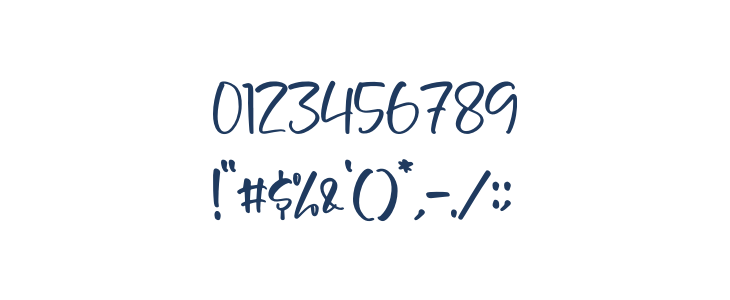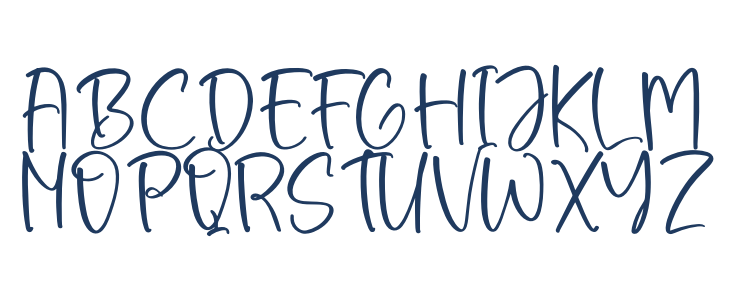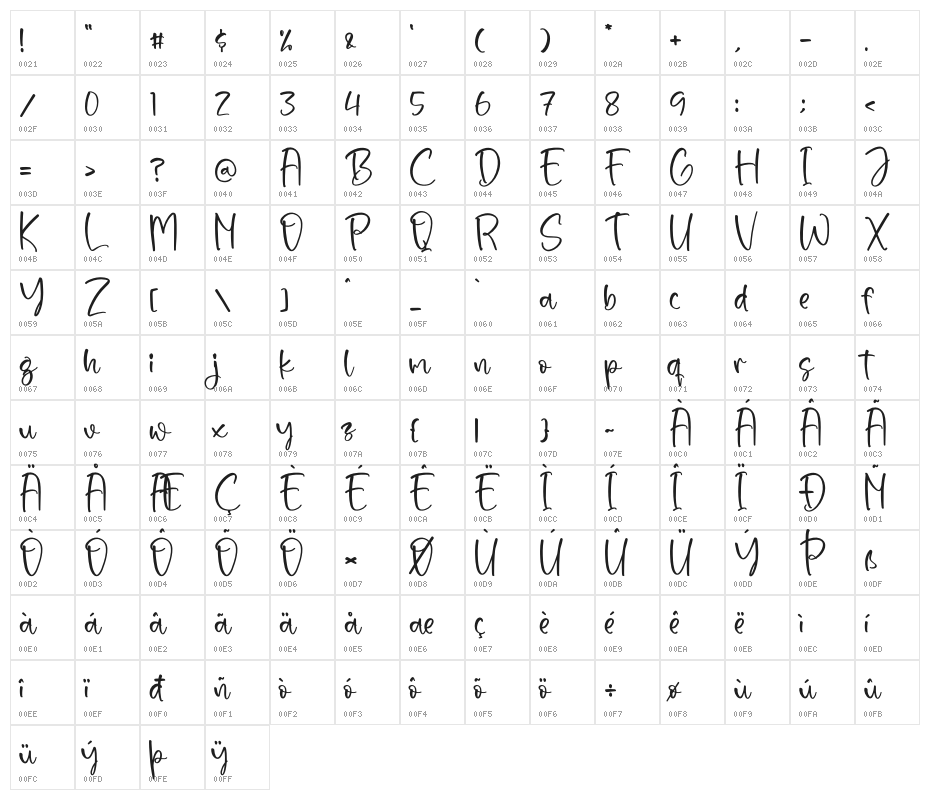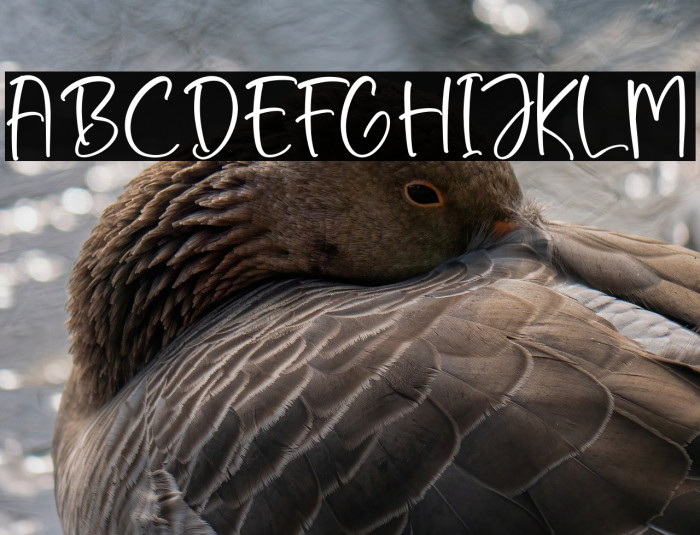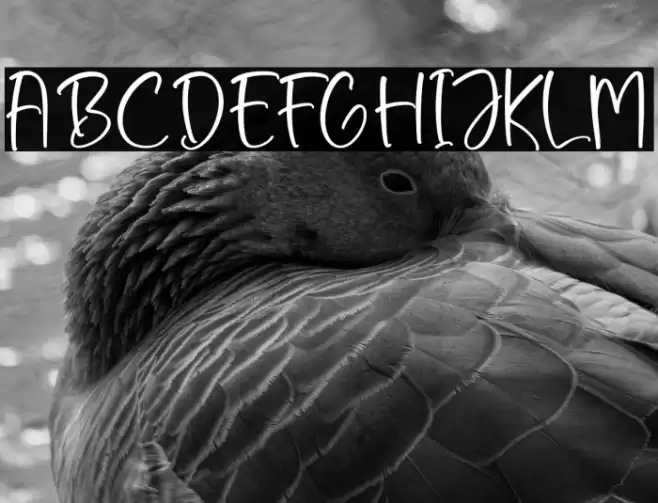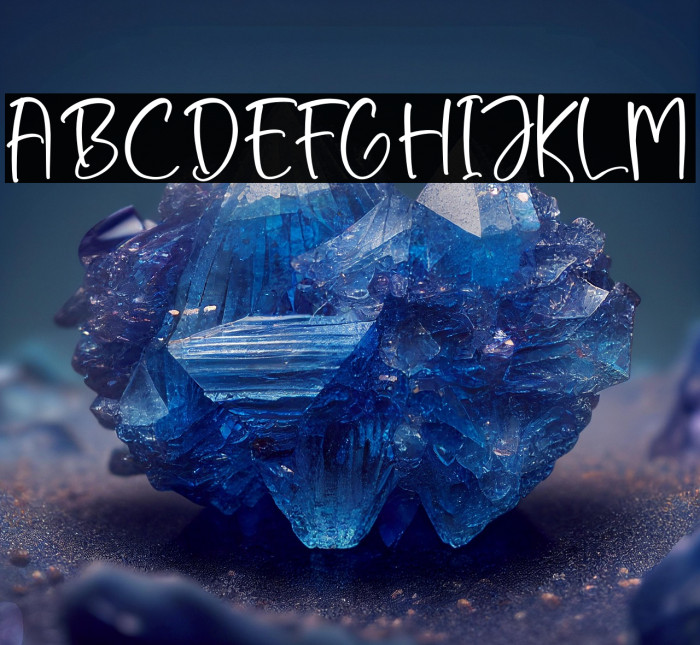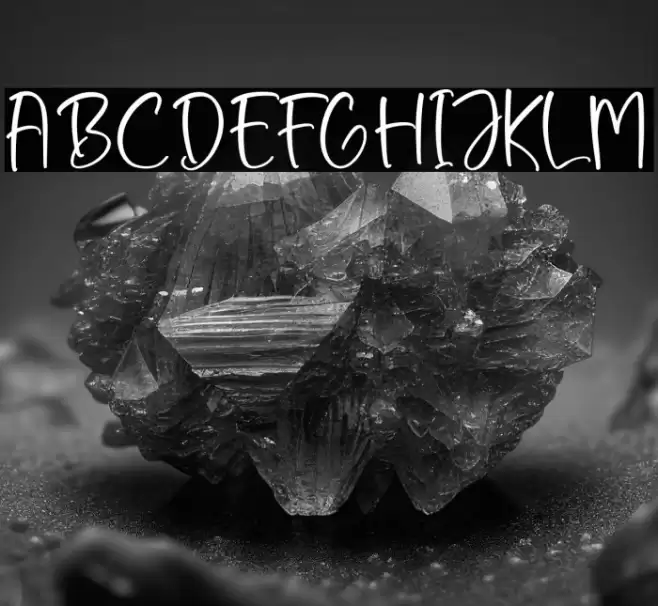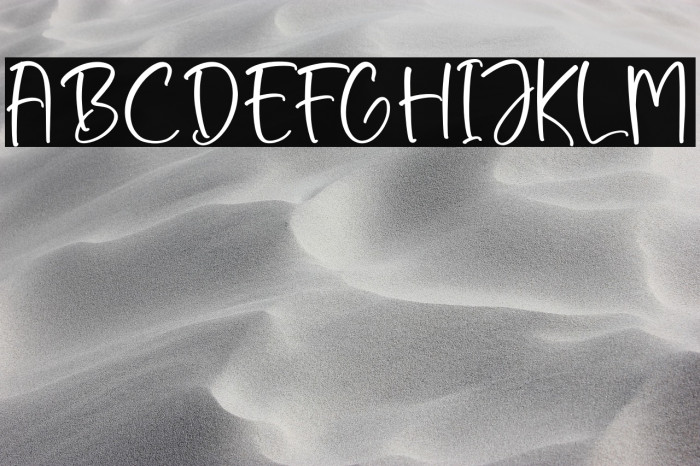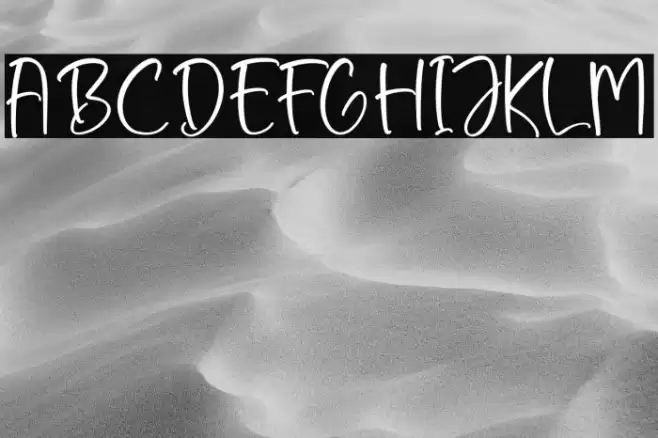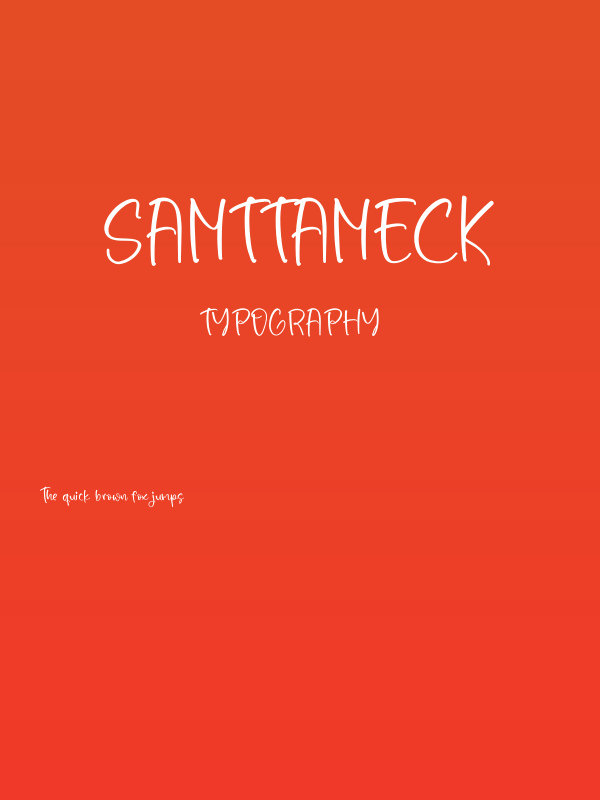
Santtaneck Font
Santtaneck Description
A casual, handwritten script font with a playful and informal style, featuring varying stroke widths and a slightly irregular baseline.
| Overall Style | Casual, Playful, Handwritten |
| Use Case | Headlines, Personal projects, Creative branding |